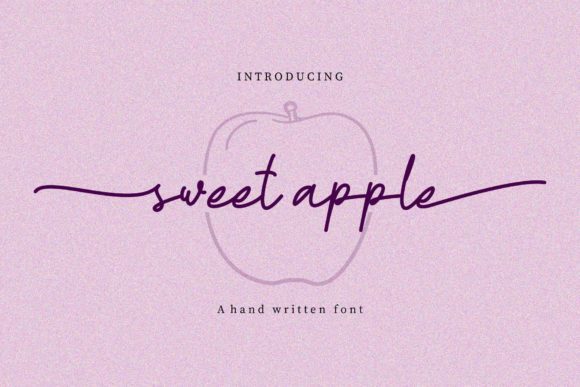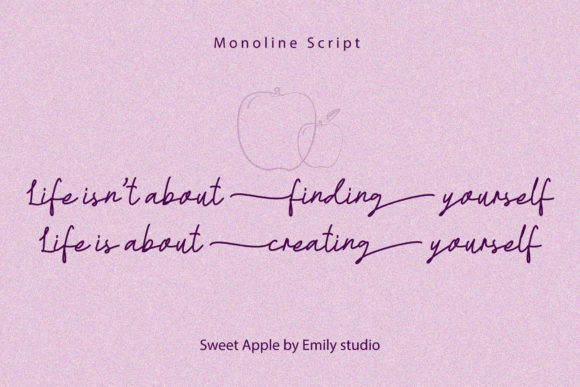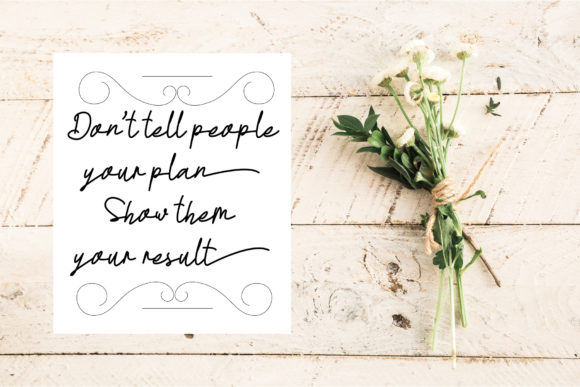
About Sweet Apple Font
Sweet Apple is a fashionable and relaxed script font. It is suitable for application in advertisements, product packaging, social media, wedding invitations and others.